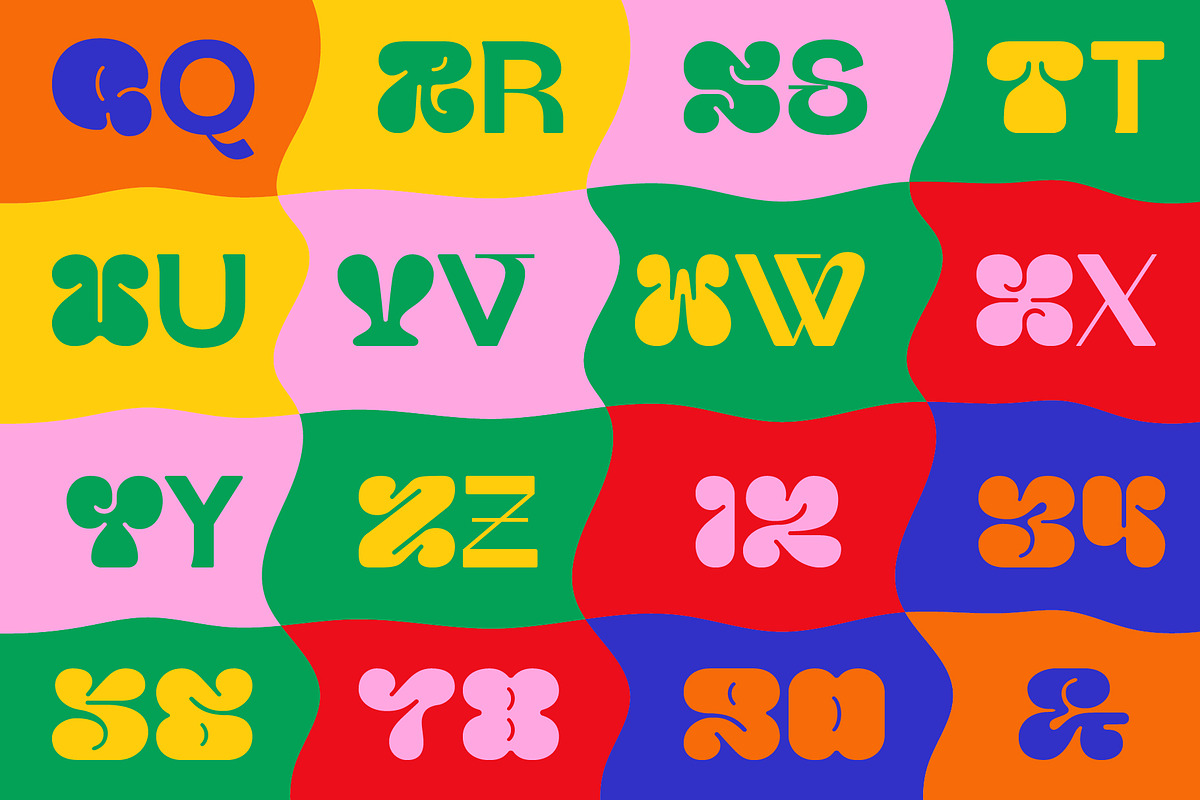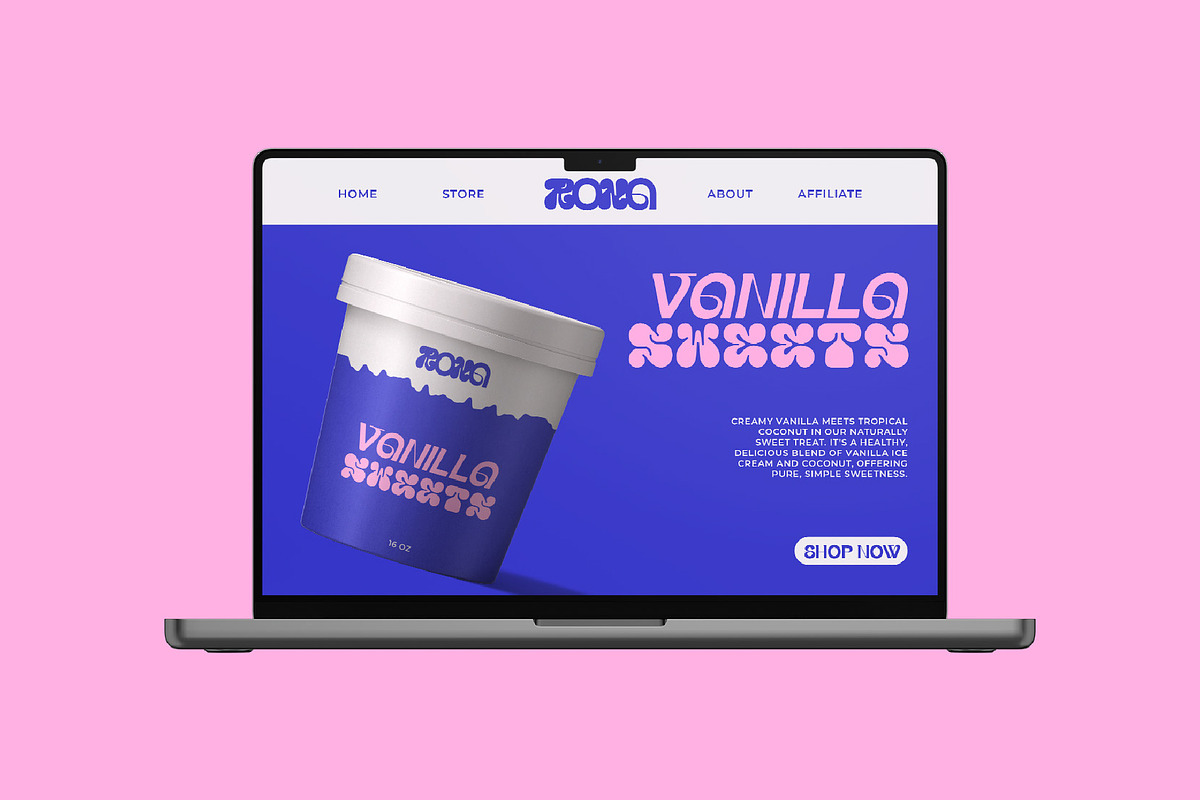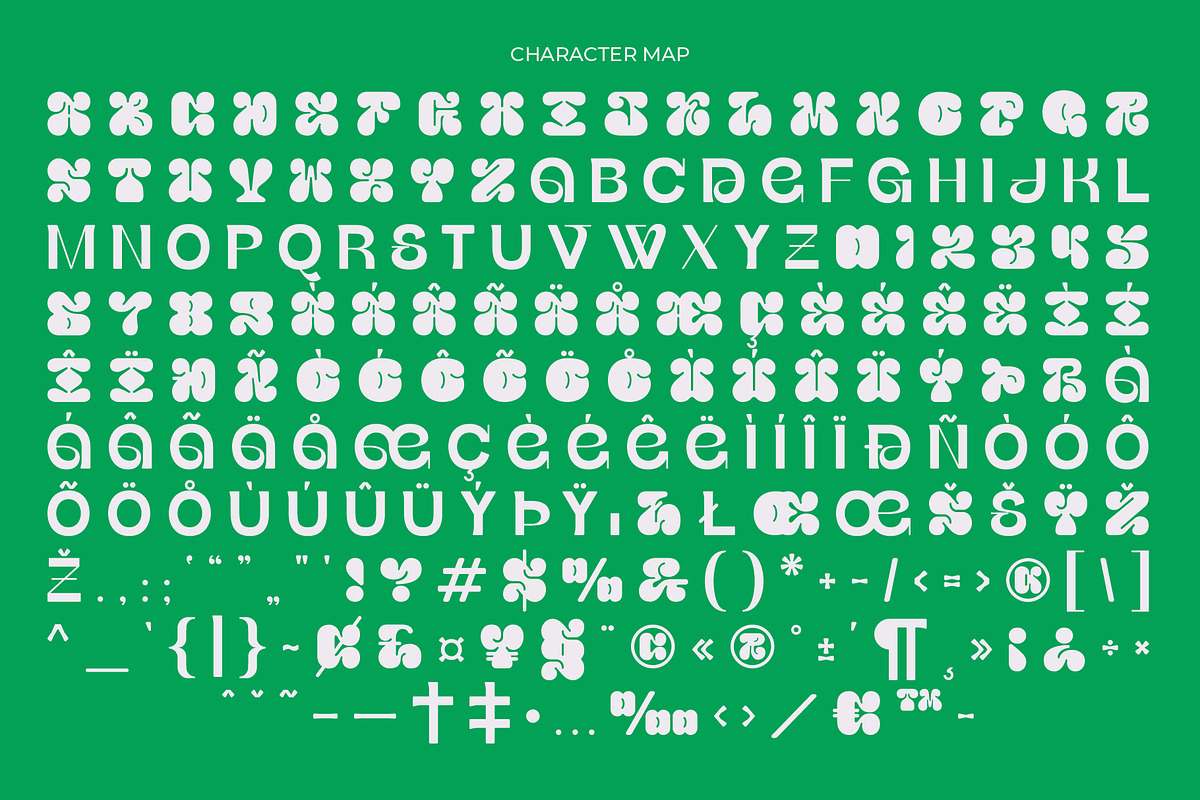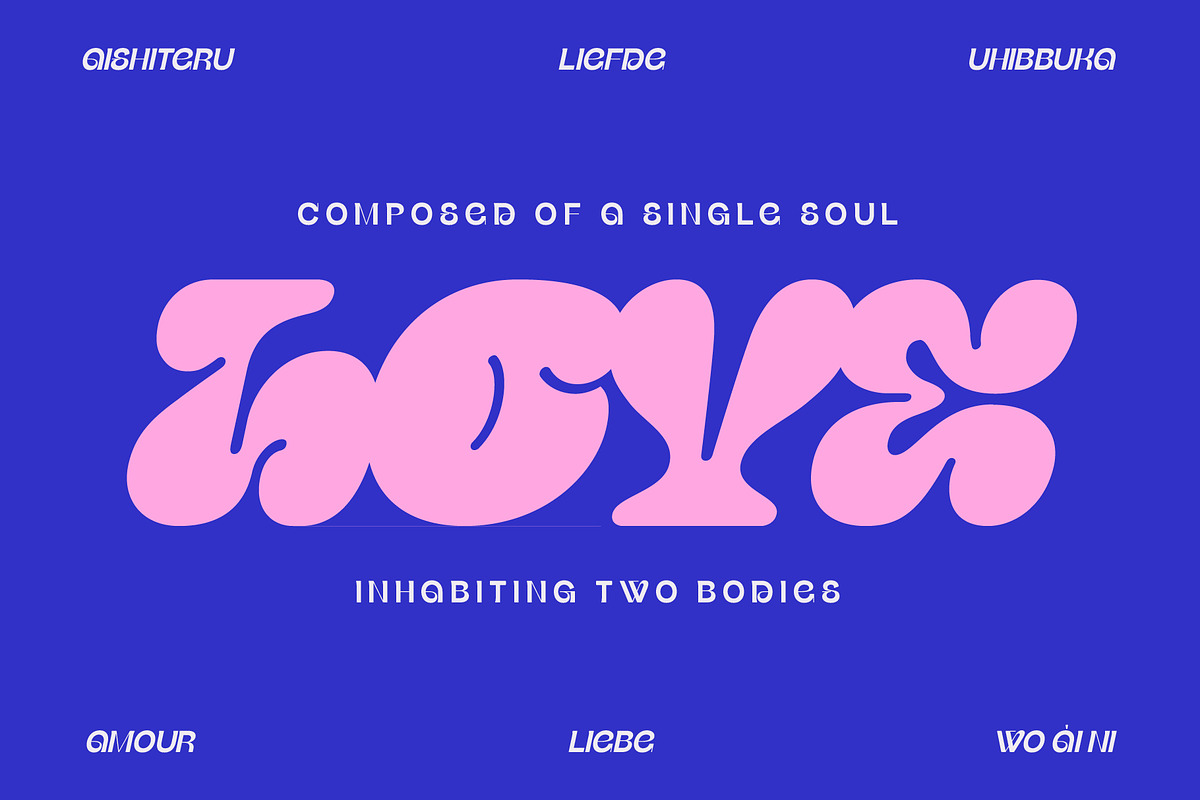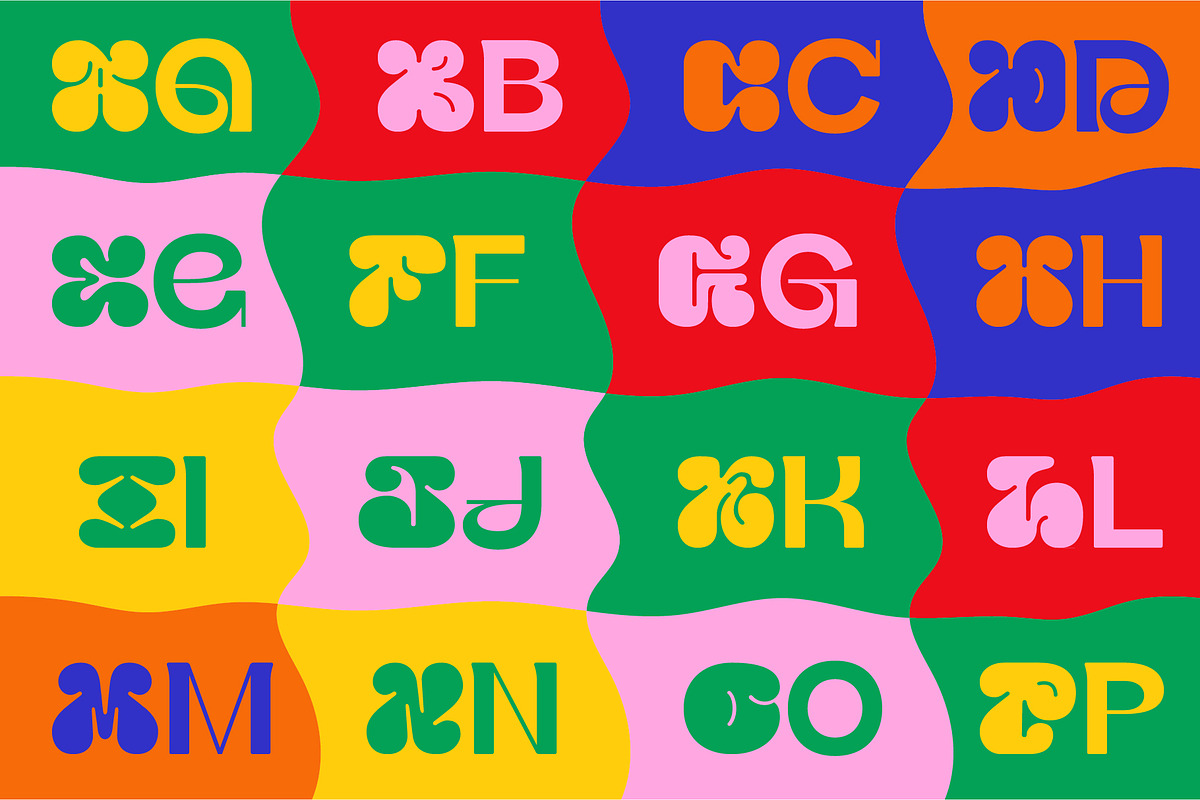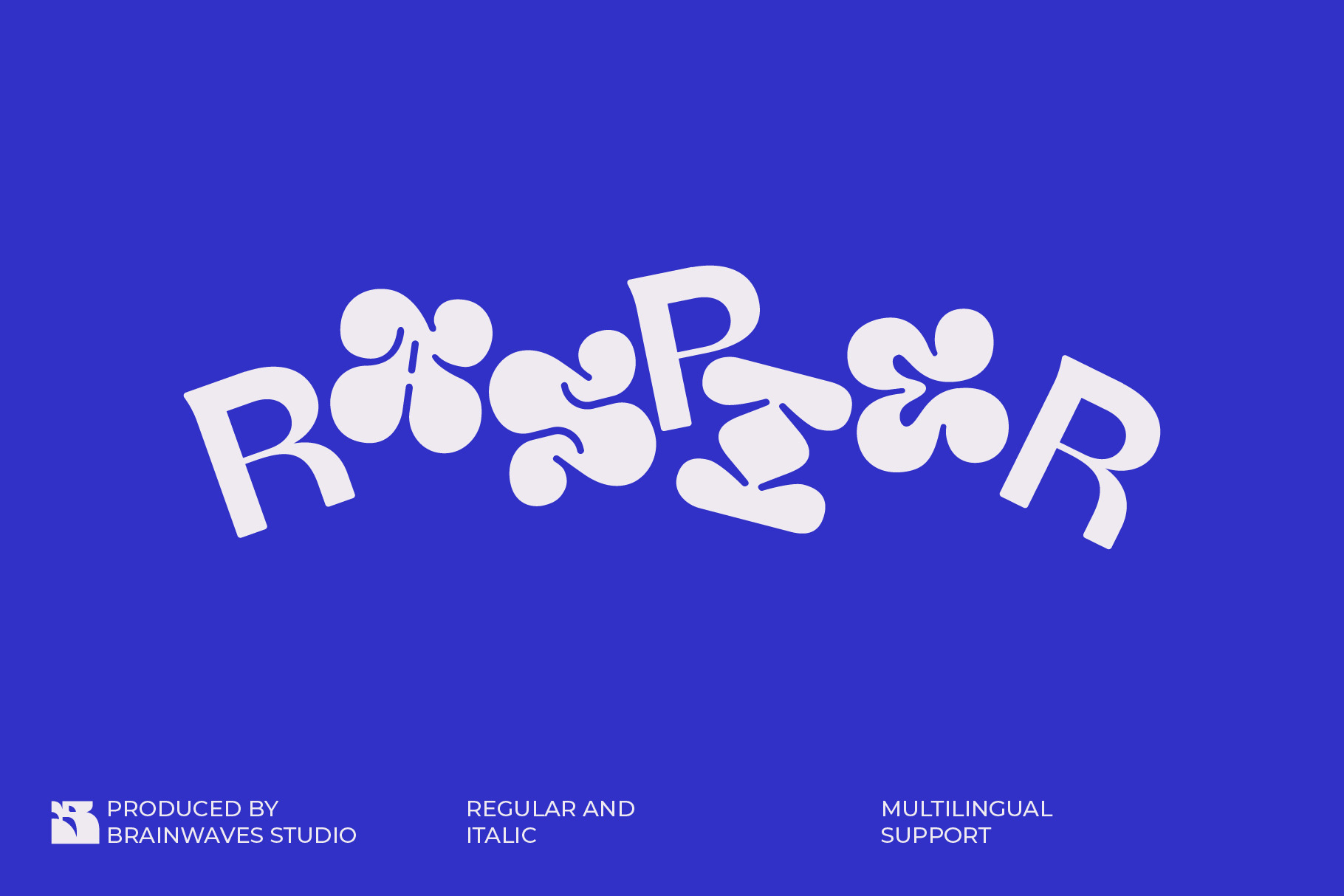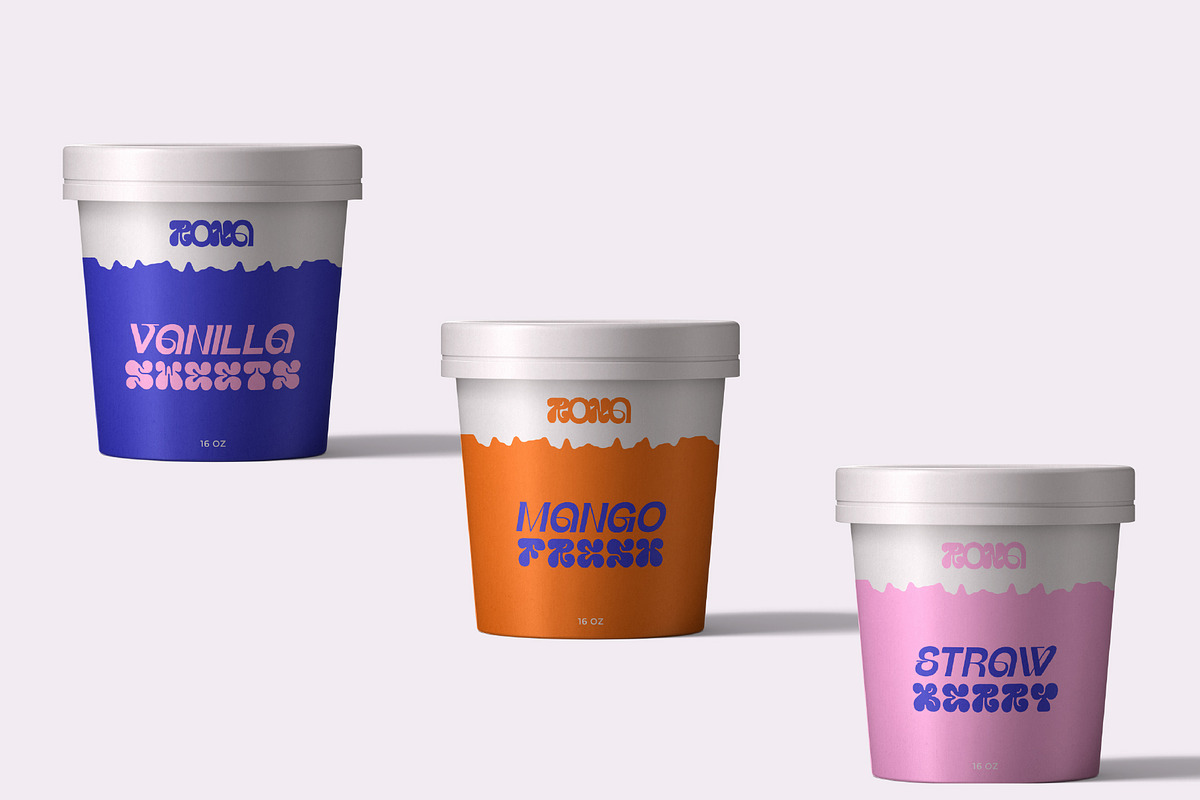
Raspier - Mixed Display Font
Get ready for a blast from the past with Raspier, a wildly unique mixed display font! This isn't your average typeface—it's a groovy, psychedelic journey with abstract, liquid-like letterforms that instantly inject fun and retro vibes into your designs.
Imagine your headlines melting into a funky, unforgettable work of art. Raspier is a showstopper, perfect for brands that want to feel nostalgic, youthful, and full of energy. Its bold, thick strokes and organic shapes are designed for maximum visual impact, making it impossible to ignore.
This font is more than just a throwback; it’s a modern tool for creators. It includes multiple unique glyphs for each letter, so you can mix and match to create truly custom layouts.
- Groovy Retro Style: Unique abstract letterforms for a nostalgic, psychedelic feel.
- Bold & Heavy Weight: Creates high-impact titles and headlines.
- Unique Glyph Variations: Mix and match characters for a custom look.
- Extensive Multilingual Support: Ready for global projects with a wide character set.
- Full Character Set: Includes all uppercase letters, numbers, and symbols.